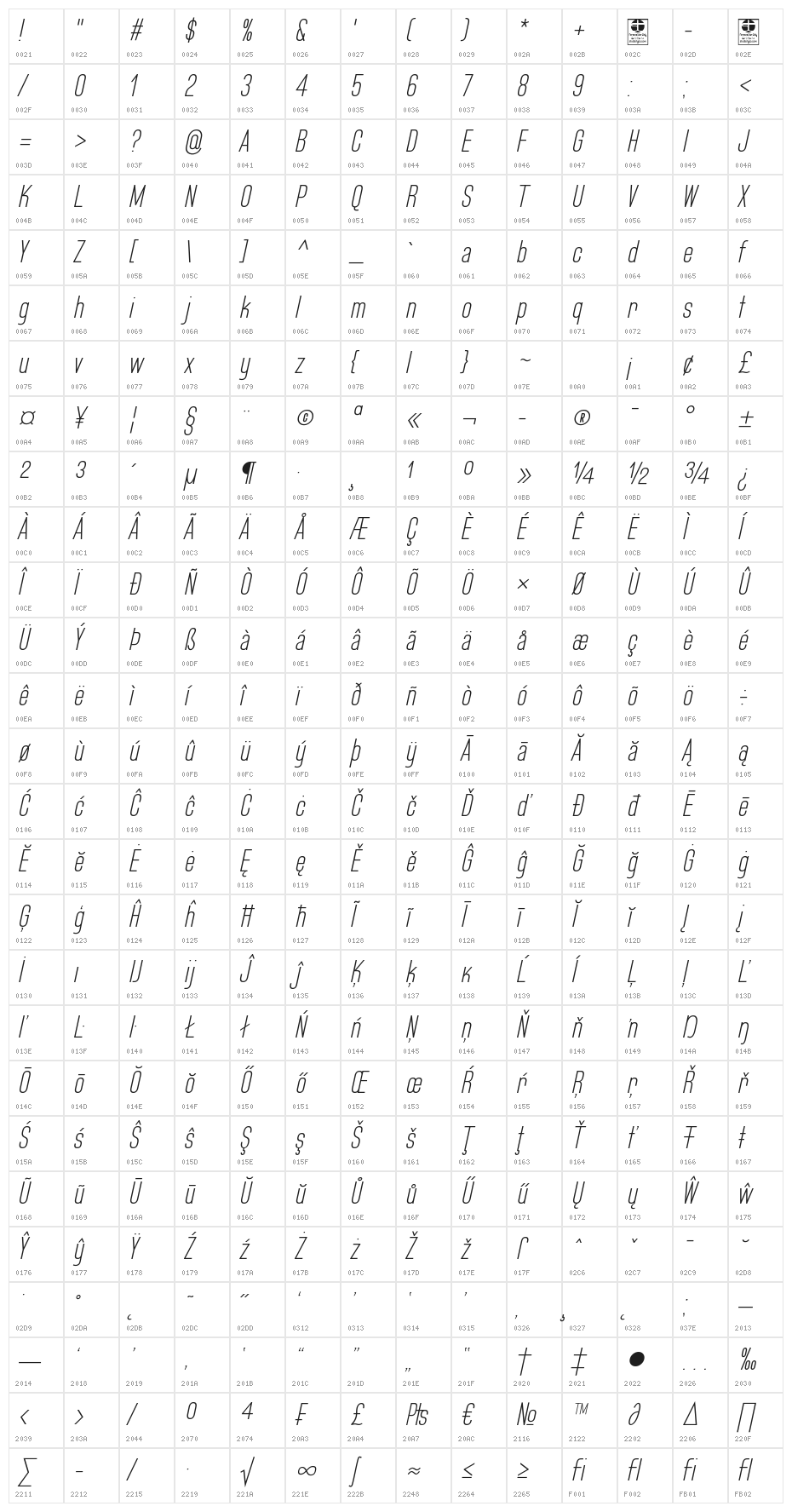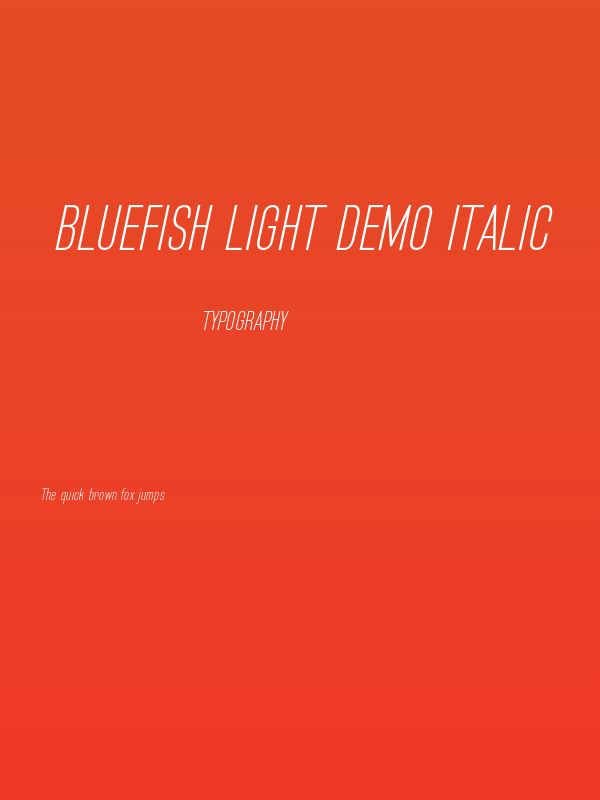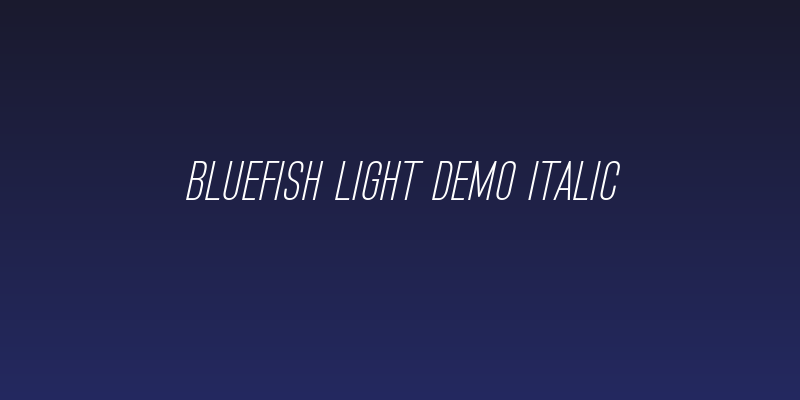
Bluefish Light Demo Italic Font
Bluefish Light Demo Italic Description
This font features a sleek, modern design with a distinct italic slant, giving it a dynamic and forward-leaning appearance. The characters are tall and narrow, with a consistent stroke width that maintains a clean and professional look. The uppercase letters are bold and commanding, while the lowercase letters offer a more subtle elegance. The numerals are clear and easy to read, making them suitable for various applications. Special characters are included, maintaining the font's cohesive style. Overall, this typeface exudes a sense of sophistication and modernity, making it ideal for contemporary design projects.
| Use Case | Headlines, Logos, Editorial Design |
| Proposed Projects | Ideal for branding, advertising, editorial design, and modern web design projects. |